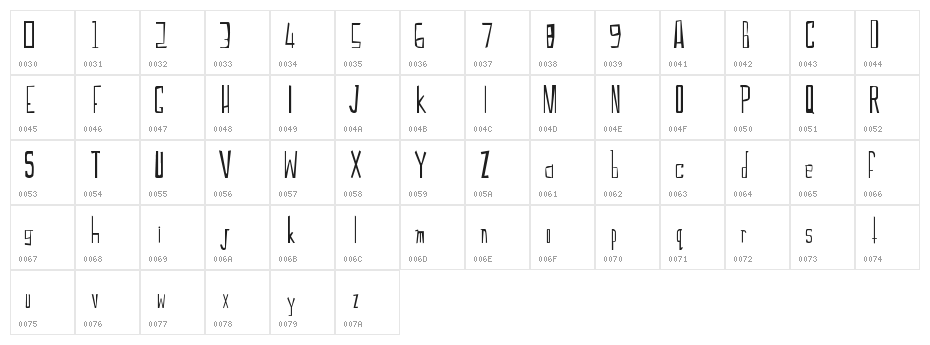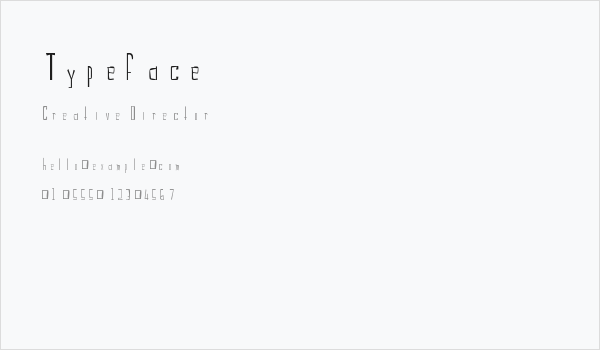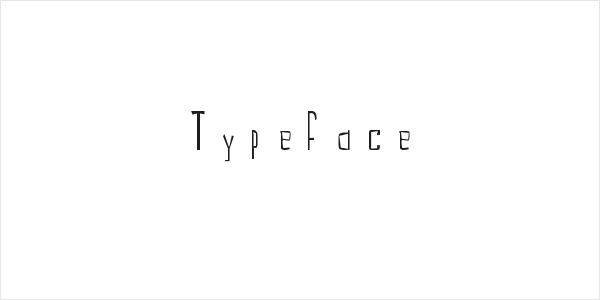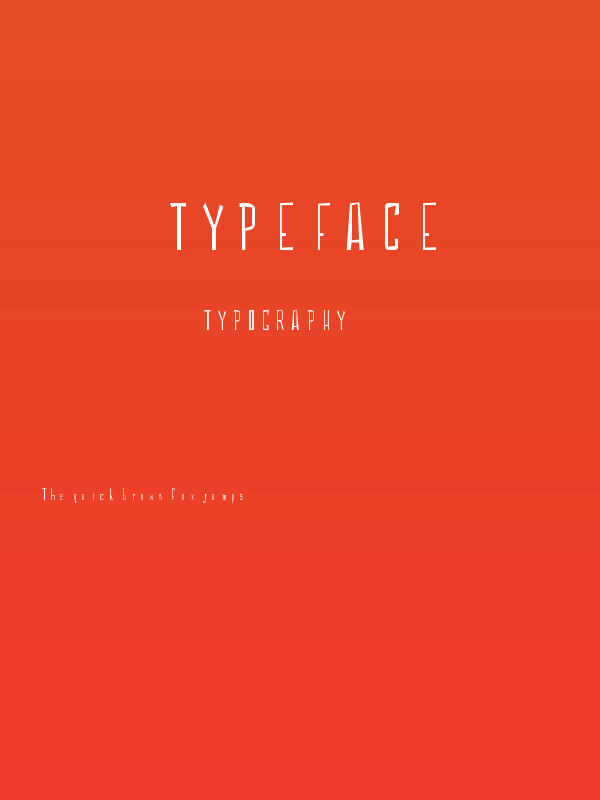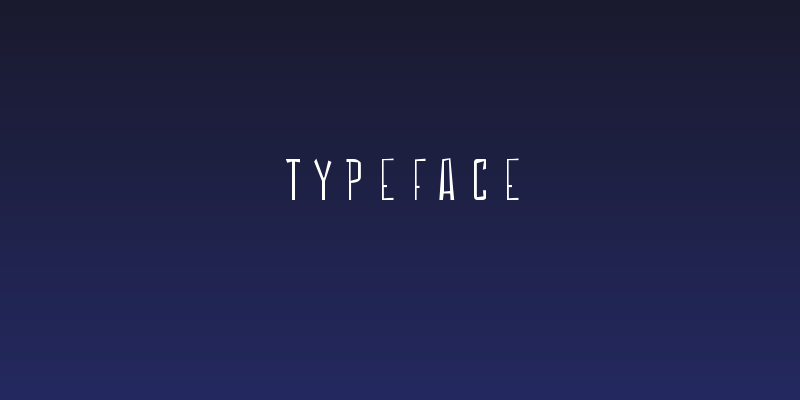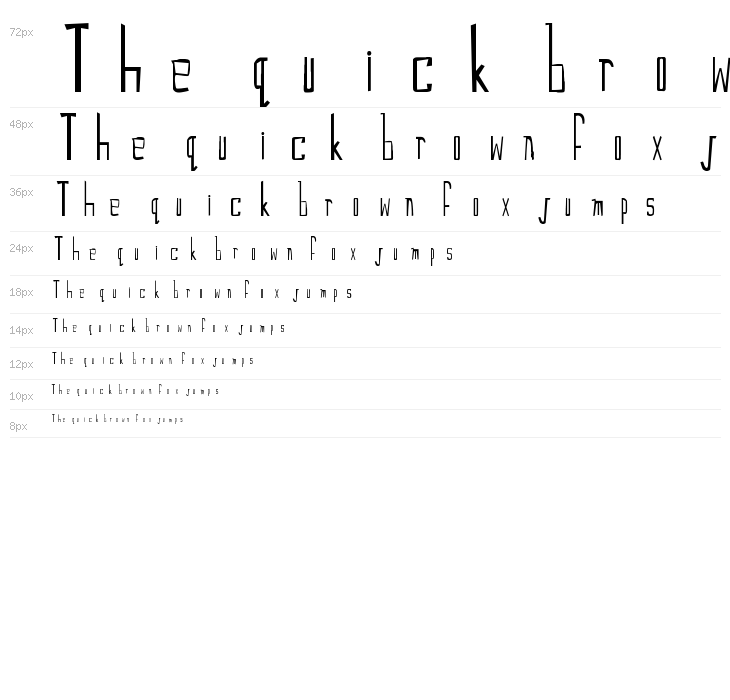
Typeface Font
Typeface Description
This typeface features a unique, angular design with a modern and edgy feel. The characters are constructed with sharp, geometric lines, giving them a distinct and unconventional appearance. The uppercase letters are tall and narrow, while the lowercase letters maintain a similar angular style, creating a cohesive look. The numerals follow the same design principles, with a bold and striking presence. Special characters are included, maintaining the overall aesthetic. This typeface is ideal for projects that require a bold and modern statement.
| Width | Condensed |
| Proposed Projects | Ideal for branding, posters, album covers, and any project needing a modern, standout typeface. |